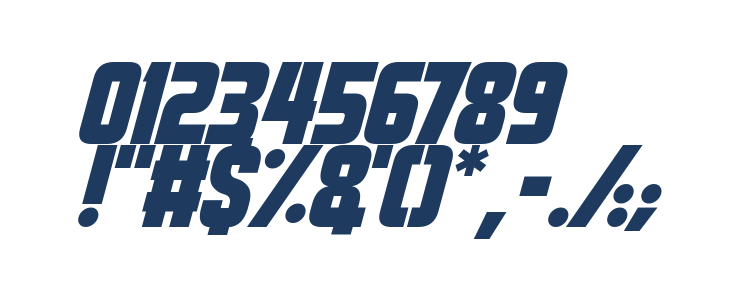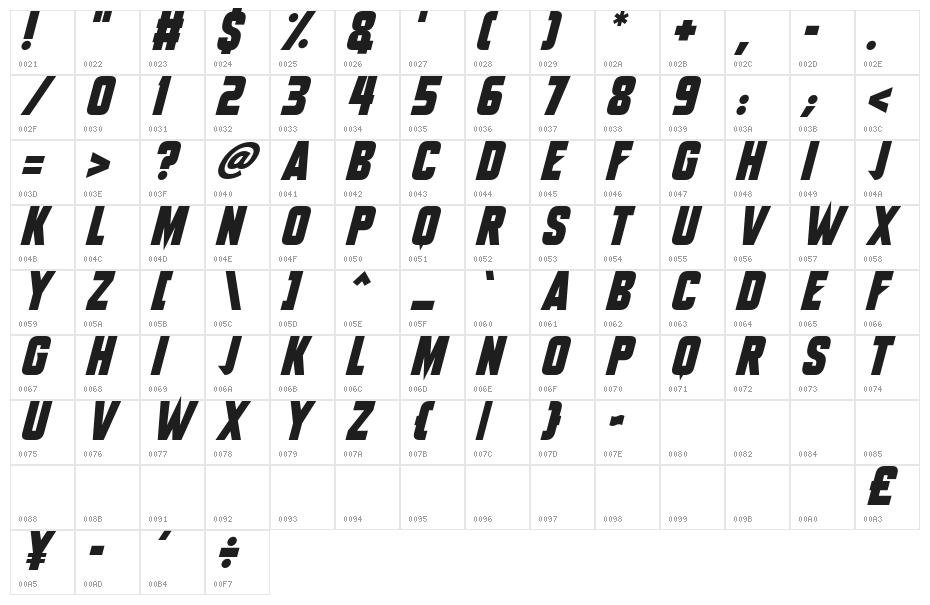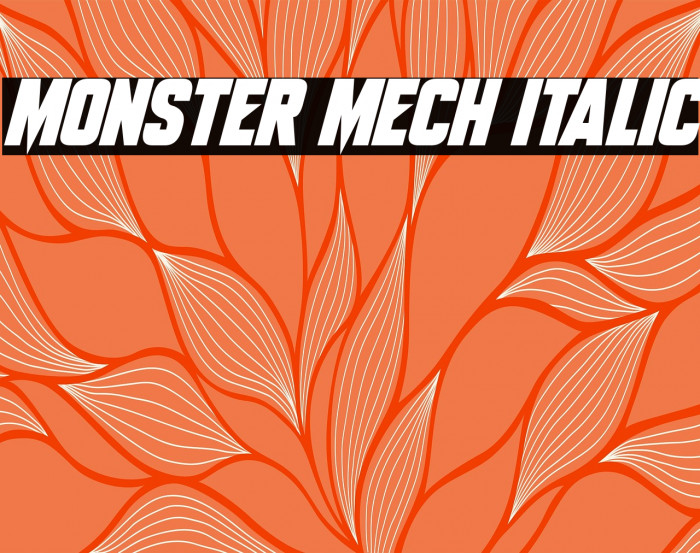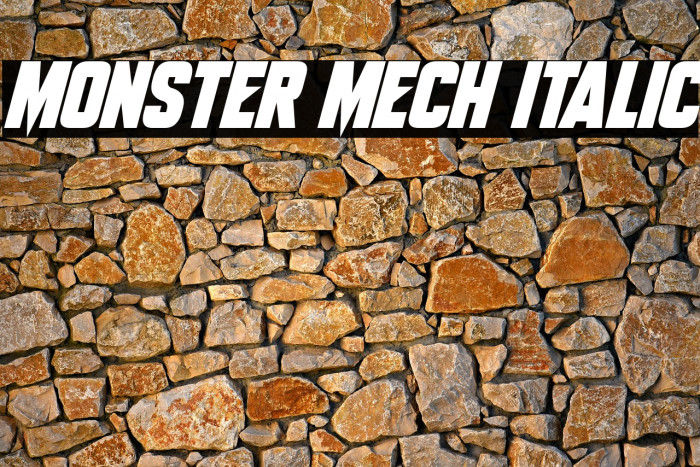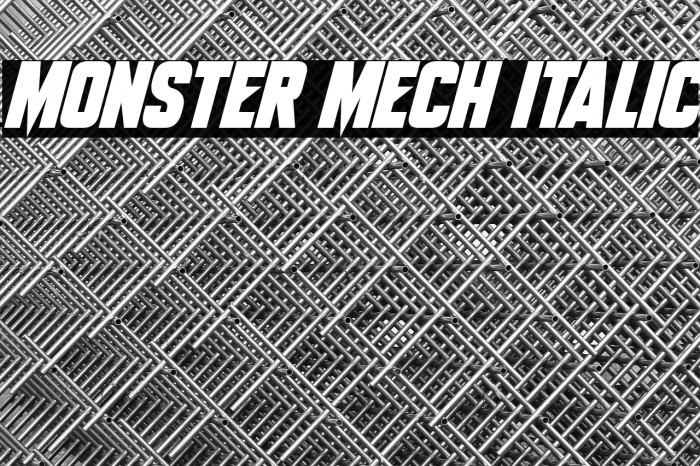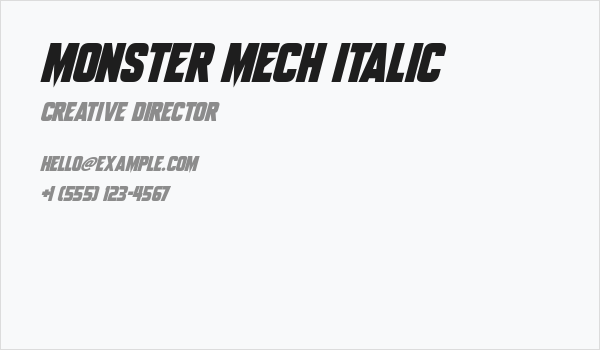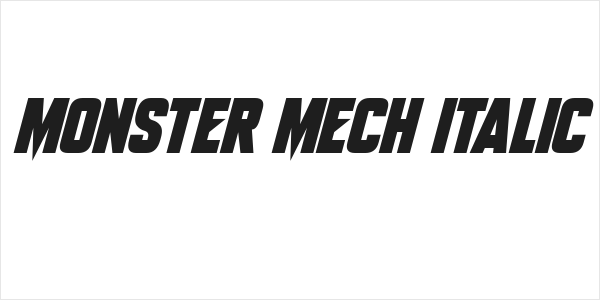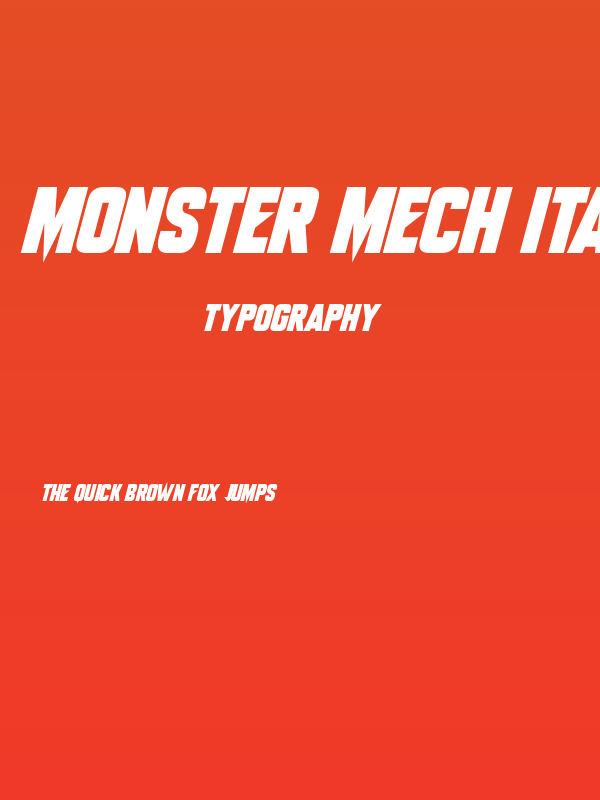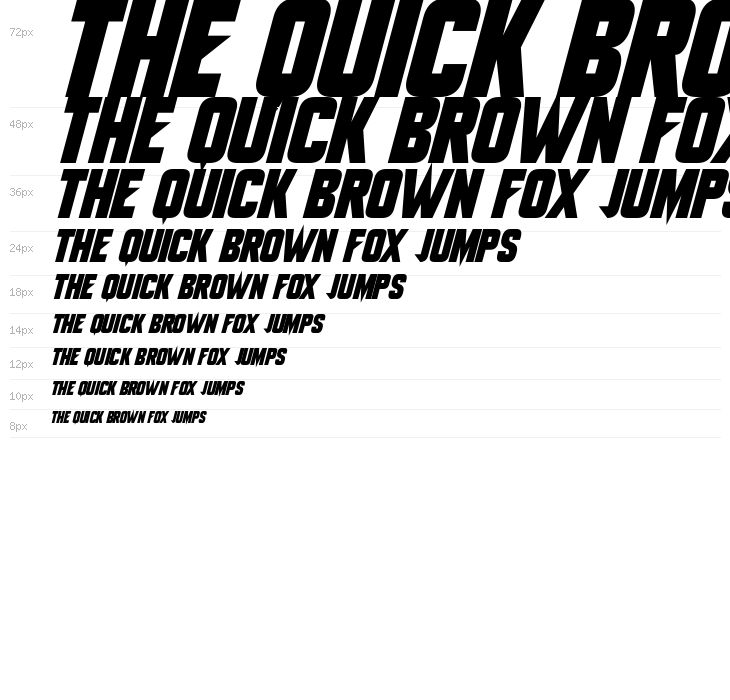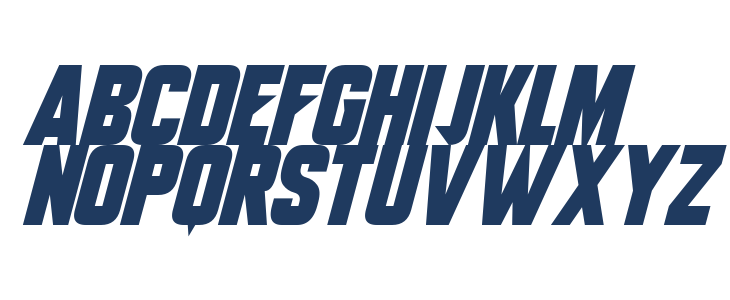
Monster Mech Italic Font
Monster Mech Italic Description
This font features a bold and dynamic design with a strong, angular appearance. The letters are italicized, giving them a forward-leaning stance that suggests motion and energy. The strokes are thick and consistent, contributing to a high-impact visual presence. The characters are tightly spaced, enhancing the compact and powerful look. The sharp edges and geometric shapes make it suitable for modern and futuristic themes. This font is ideal for projects that require a bold statement, such as sports branding, automotive designs, or video game titles.
| Proposed Projects | Ideal for sports branding, automotive designs, video game titles, and dynamic posters. |